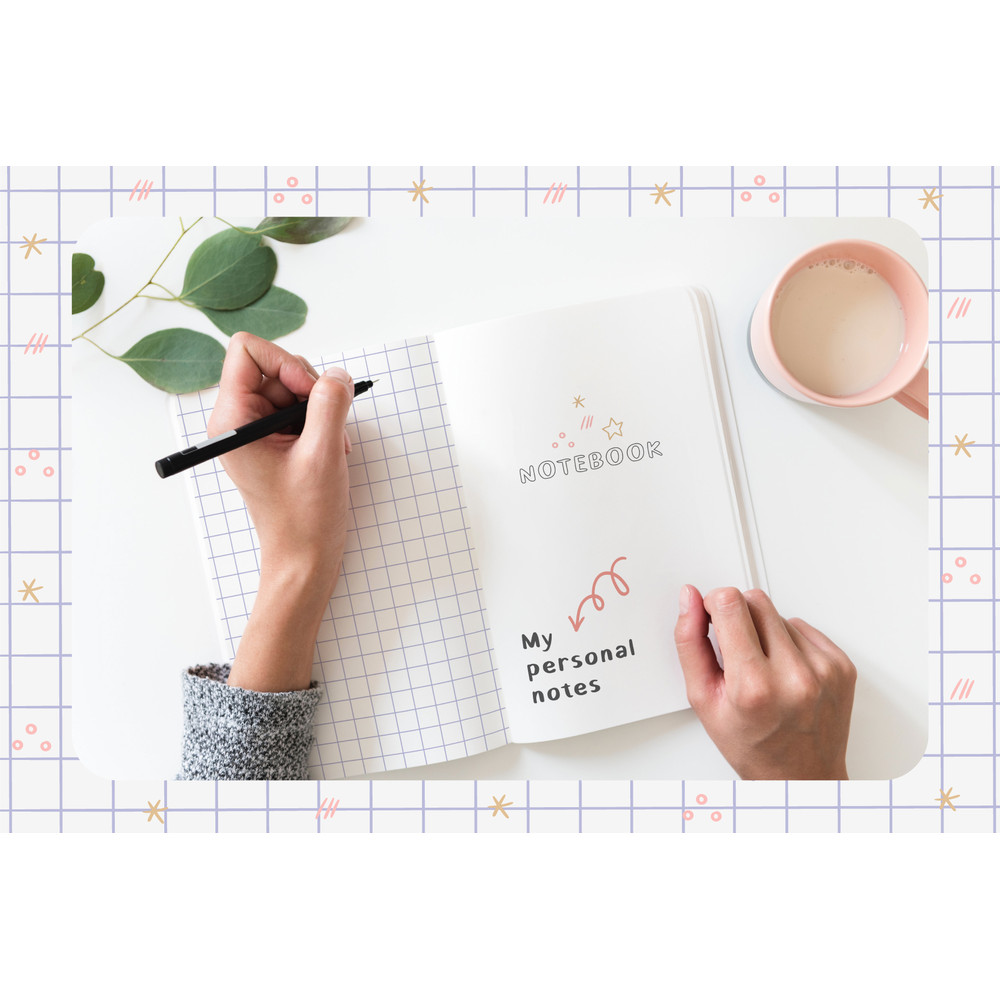
School Cool Font
Funny school kids font that can be used to design notebooks, diaries, posters, social media posts, children's graphics in typography. Available in two styles that can be easily combined with each other.